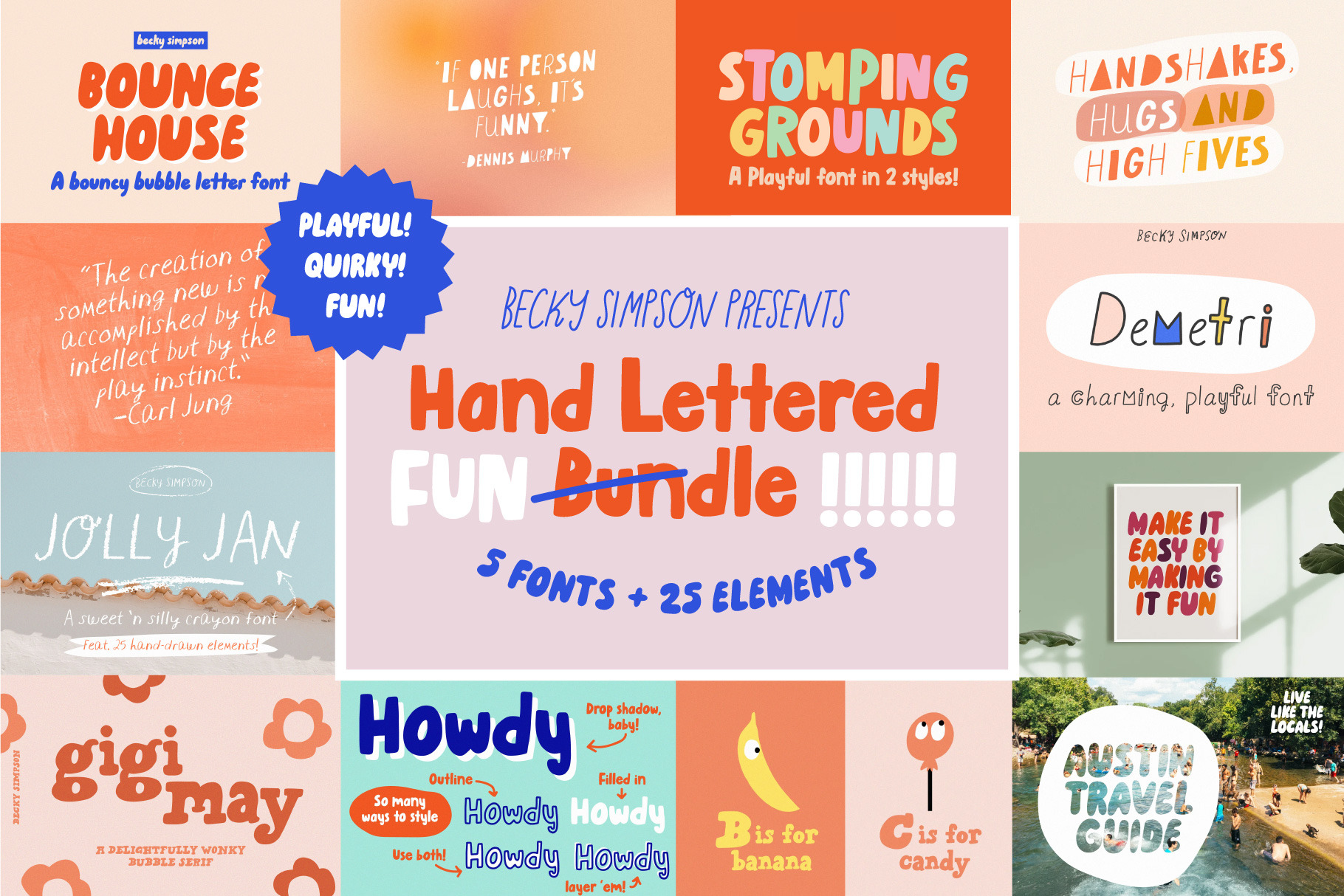
Playful Hand Lettered Font Bundle
This playful and quirky hand-lettered font bundle includes my best-sellers as well as the Creative Market Staff Pick (5 fonts total).
- Multilingual support for Bounce House and Demetri
- Jolly Jan also contains vector files for hand-drawn elements
HERE ARE THE FONTS INCLUDED:
I absolutely love these fonts. All offer something unique but I was surprised to see how easily they play together too. They add a touch of fun and handmade to any project.
These fonts are so much fun!! These are going to score me some extra cool points with my students!! These fonts could bring out joy in any text!
I love this font bundle - all of the fonts are so fun! I can’t wait to use them and to see what other fonts Becky creates. I’ll definitely be back to purchase more of her work.